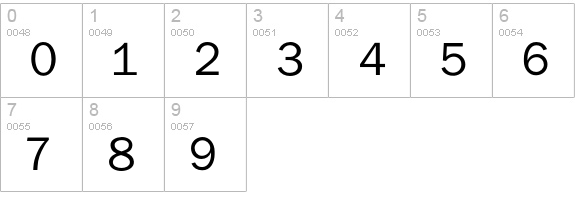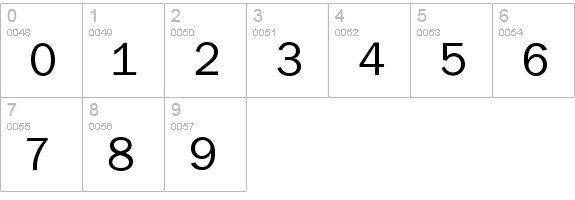
FranklinBook Font Details
FranklinBook font is a timeless and elegant typeface that exudes sophistication and readability. Its classic and versatile design make it the perfect choice for a wide range of projects, from branding to editorial design. With its clean lines and balanced proportions, FranklinBook font offers a sense of professionalism and refinement to any text it graces. What sets FranklinBook font apart is not only its aesthetic appeal but also its accessibility. This high-quality font is available for free download at FontsMarket.com, making it a valuable addition to any designer's toolkit. Whether you're working on a corporate identity, a book layout, or a website design, FranklinBook font is sure to elevate your project with its timeless beauty and understated charm. Download it today and add a touch of sophistication to your designs.